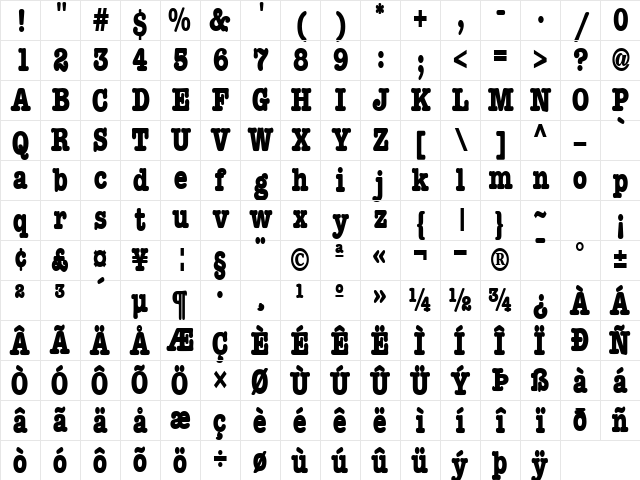
BocciText13 Bold
Complete BocciText13 Bold glyph index. Displaying only characters natively supported by BocciText13 Bold font.
Design Context for BocciText13
BocciText13 is a composed and adaptable typeface that performs quietly and consistently across a wide range of design contexts. Its bold stroke weight gives it real presence on the page.